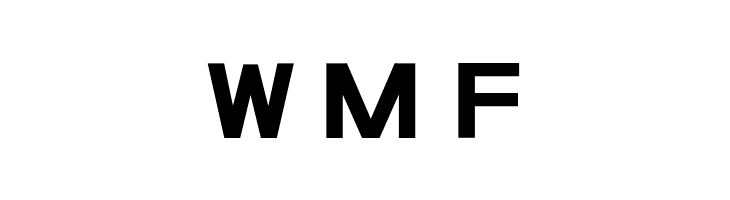
A textured, bold font with a rustic, vintage appeal.
A classic serif font with elegant strokes and a timeless charm.
A collection of bold, high-contrast icons and symbols in a modern style.
A bold, decorative font with high contrast and unique character designs.
A bold, textured font with a hand-drawn, scribble-like appearance.
A textured, sketch-like font with playful and artistic characteristics.
A bold slab serif font with strong, consistent strokes and a classic aesthetic.
A bold, expressive brushstroke font with dynamic and textured characters.
A modern, cursive font with a natural handwritten style.
A playful, hand-drawn font with rounded, irregular characters.
A modern, light sans-serif font with clean lines and balanced spacing.
A modern sans-serif font with geometric shapes and uniform strokes.
A sleek and modern sans-serif typeface with clean lines and minimalistic design.
A bold, modern sans-serif font with strong, uniform strokes.
A bold, modern sans-serif font with thick, uniform strokes.
A clean, modern sans-serif font with a light weight and geometric design.
A modern, light sans-serif font with a clean and minimalist design.
A sleek, modern, light italic font with balanced spacing and smooth strokes.
A modern, light, italic font with clean lines and a dynamic slant.
Bold, italic, and narrow font with a modern, dynamic style.
A modern, narrow sans-serif font with a clean and elegant design.
A sleek, narrow, and light italic font with a modern and elegant style.
A bold, narrow, and modern font ideal for impactful headlines.
A bold, 3D geometric font with an origami-like design.
A 3D geometric font with a modern, playful design.
A geometric, cube-like font with a futuristic and digital aesthetic.
A decorative cursive font with elegant loops and dynamic contrast.
A hand-drawn, textured font with an artistic and playful style.
A charming handwritten font with elegant, playful characteristics.